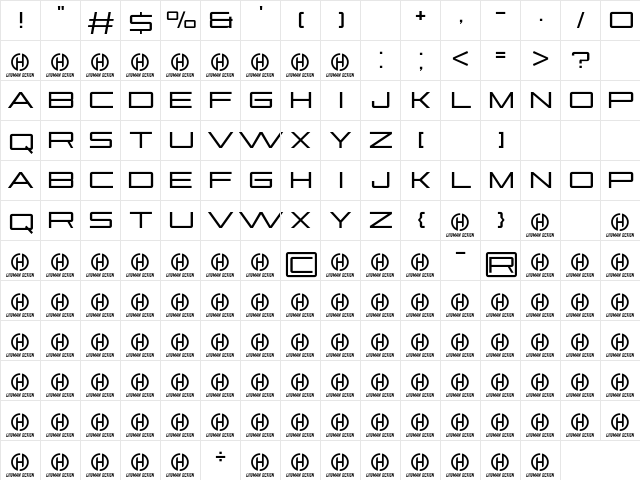
Bestari Regular
Design Context for Bestari Typeface
Bestari takes a measured approach to typography — its balanced proportions and neutral character make it a reliable workhorse for both digital and print work.